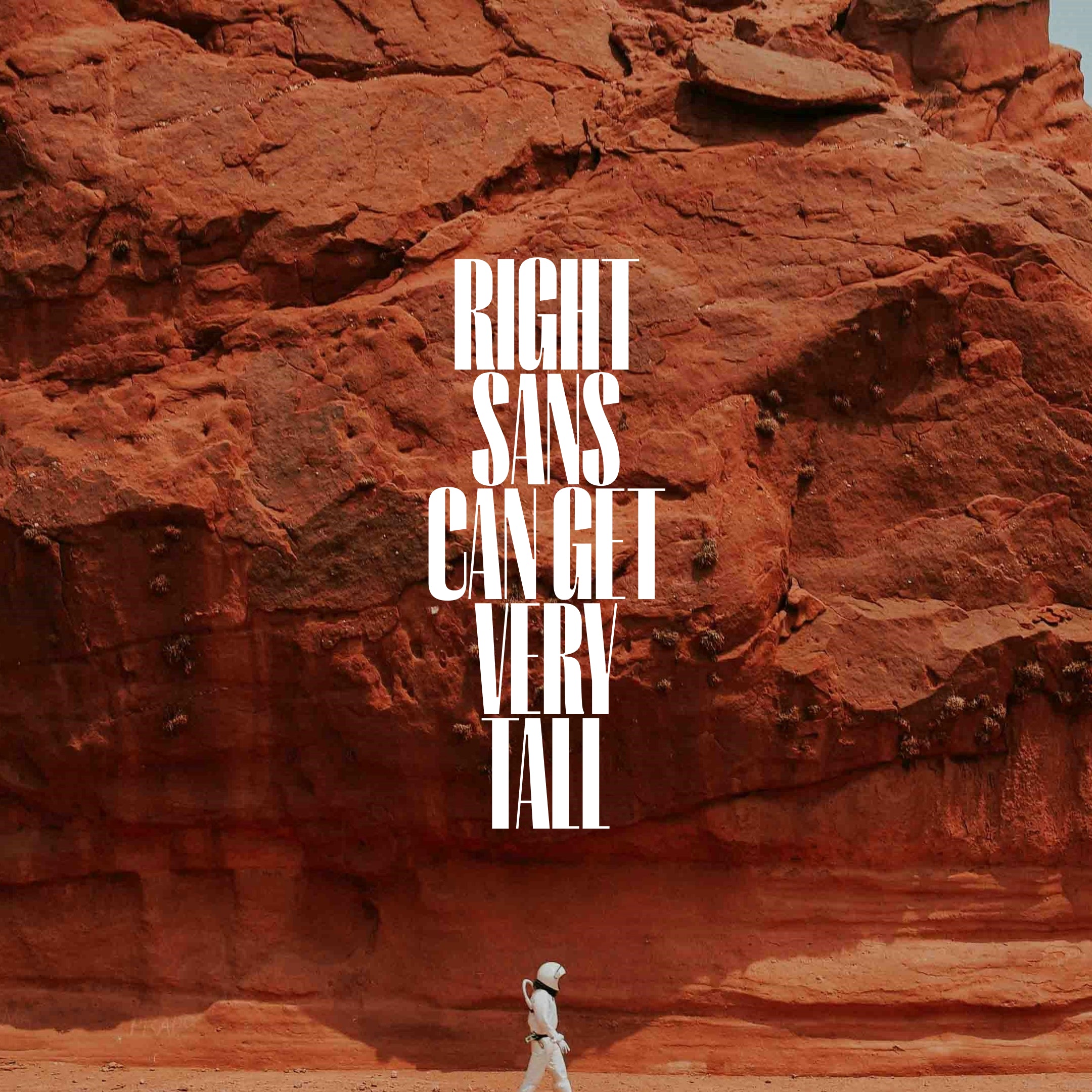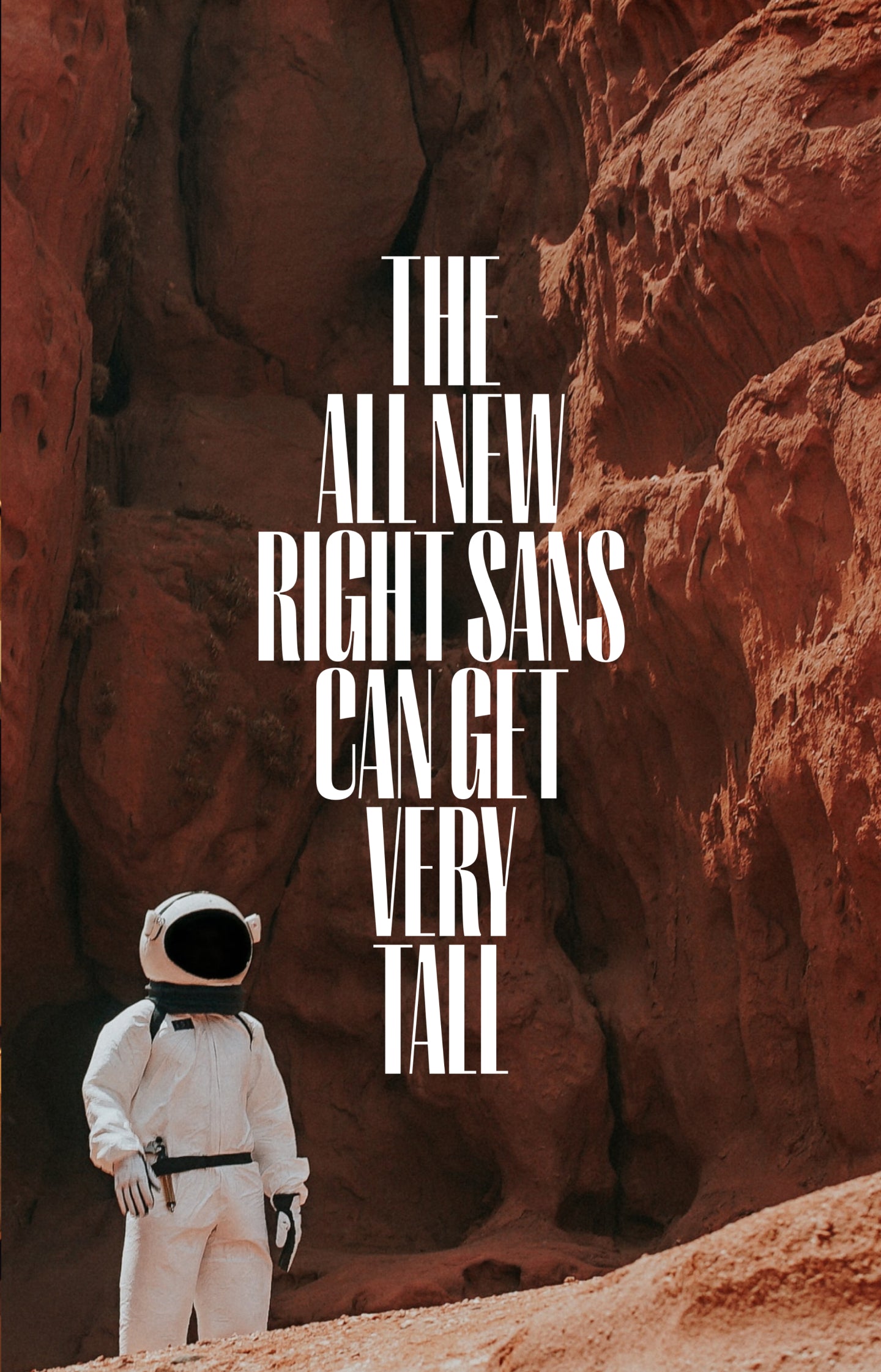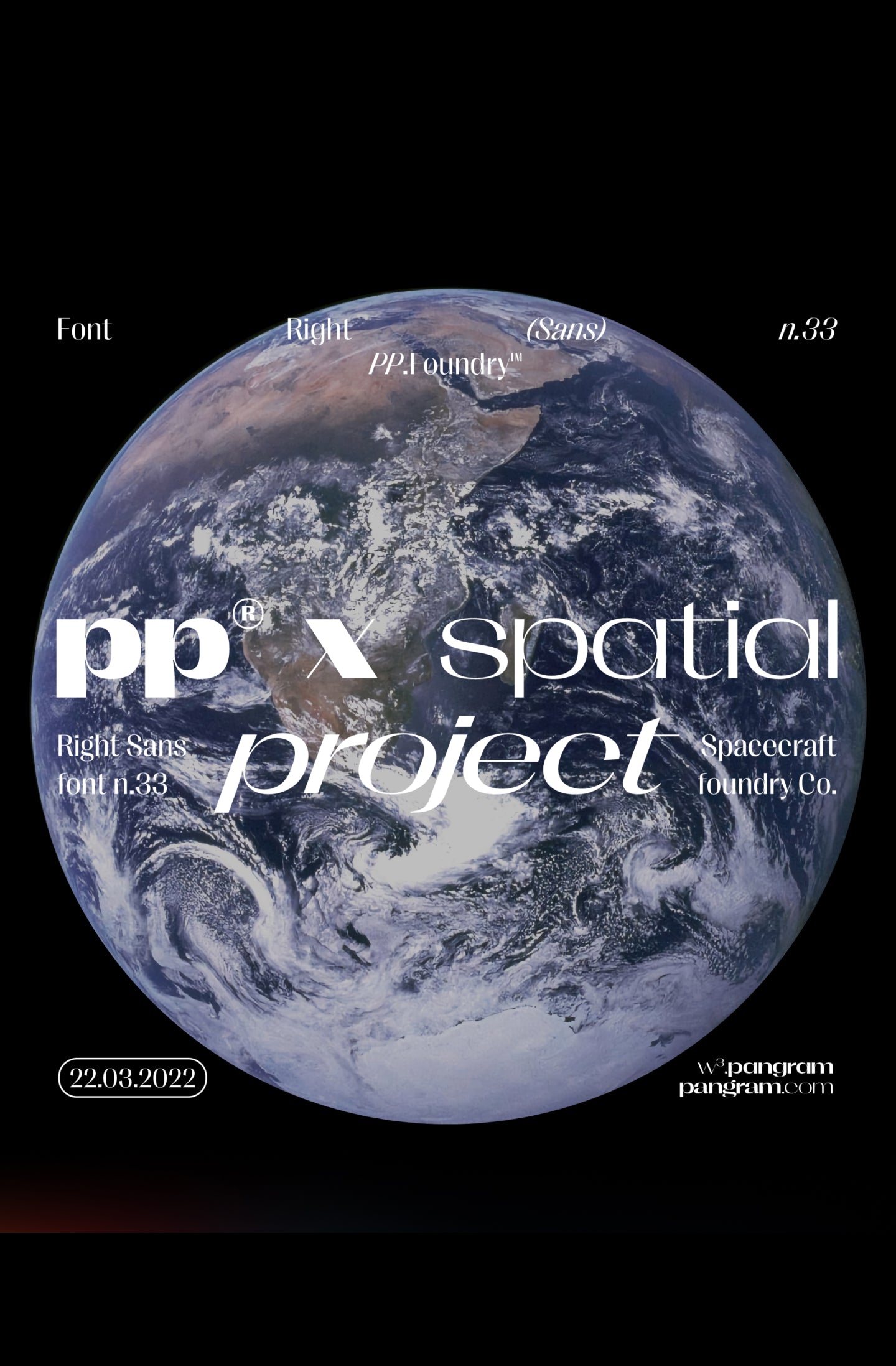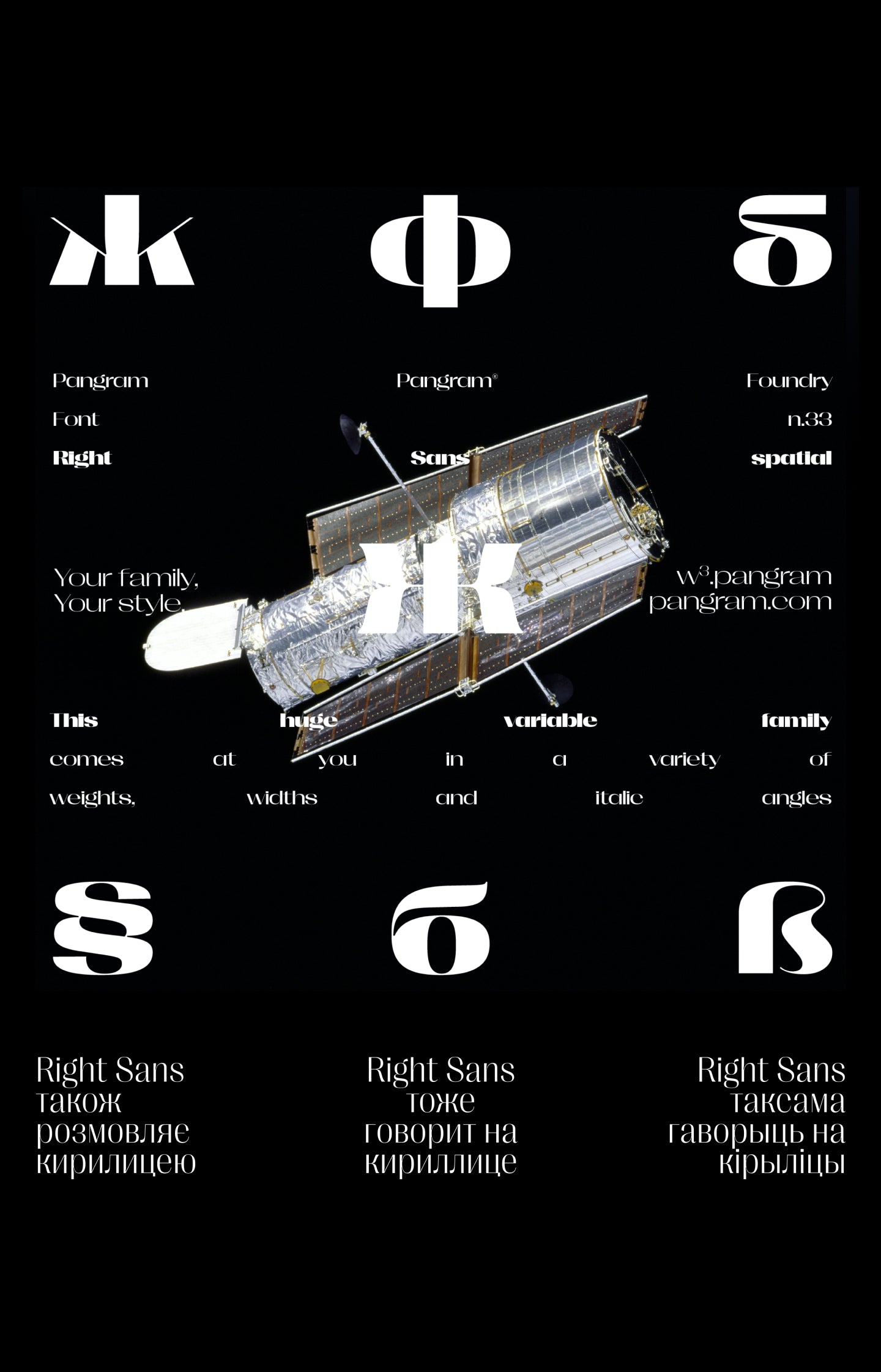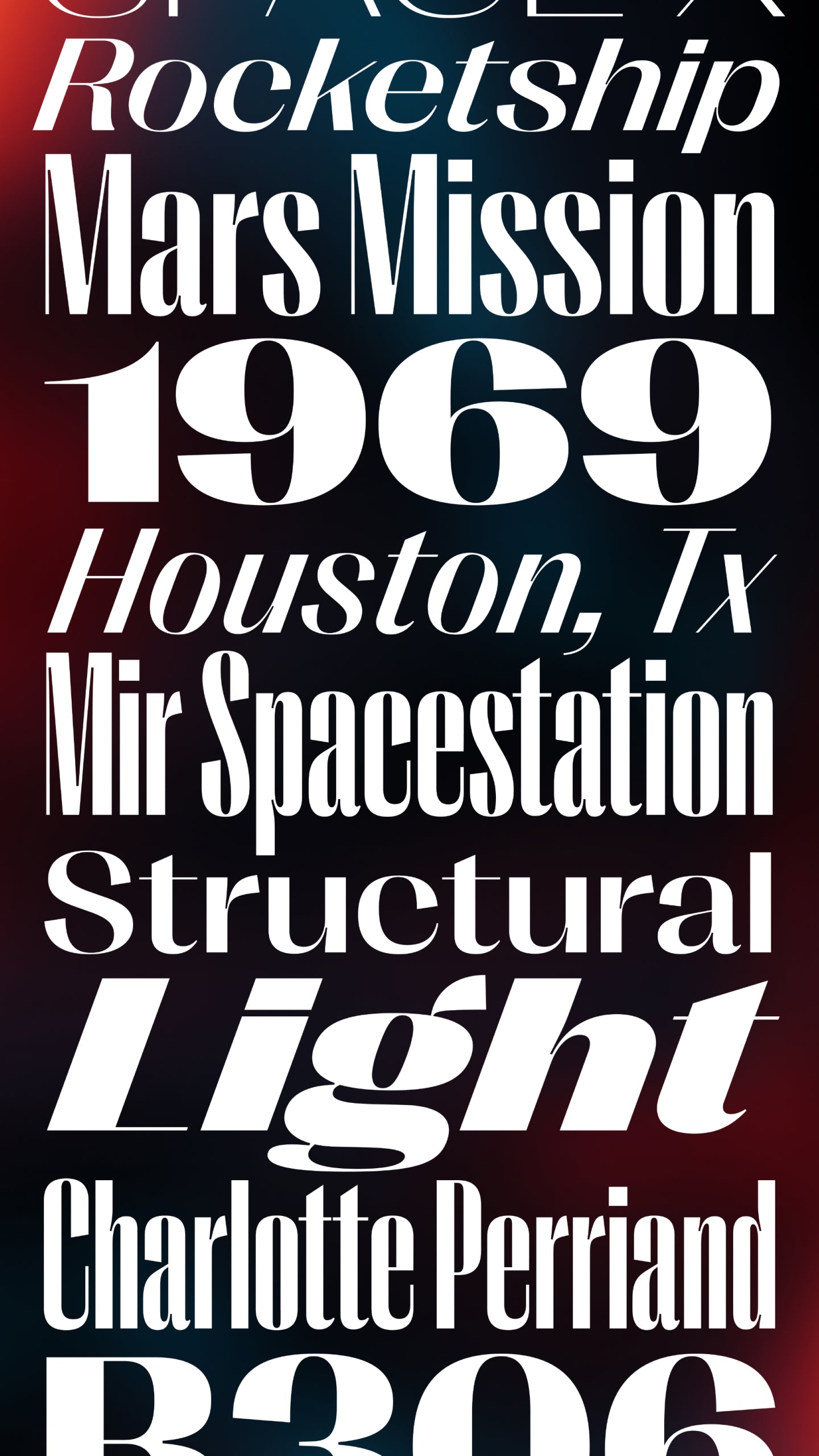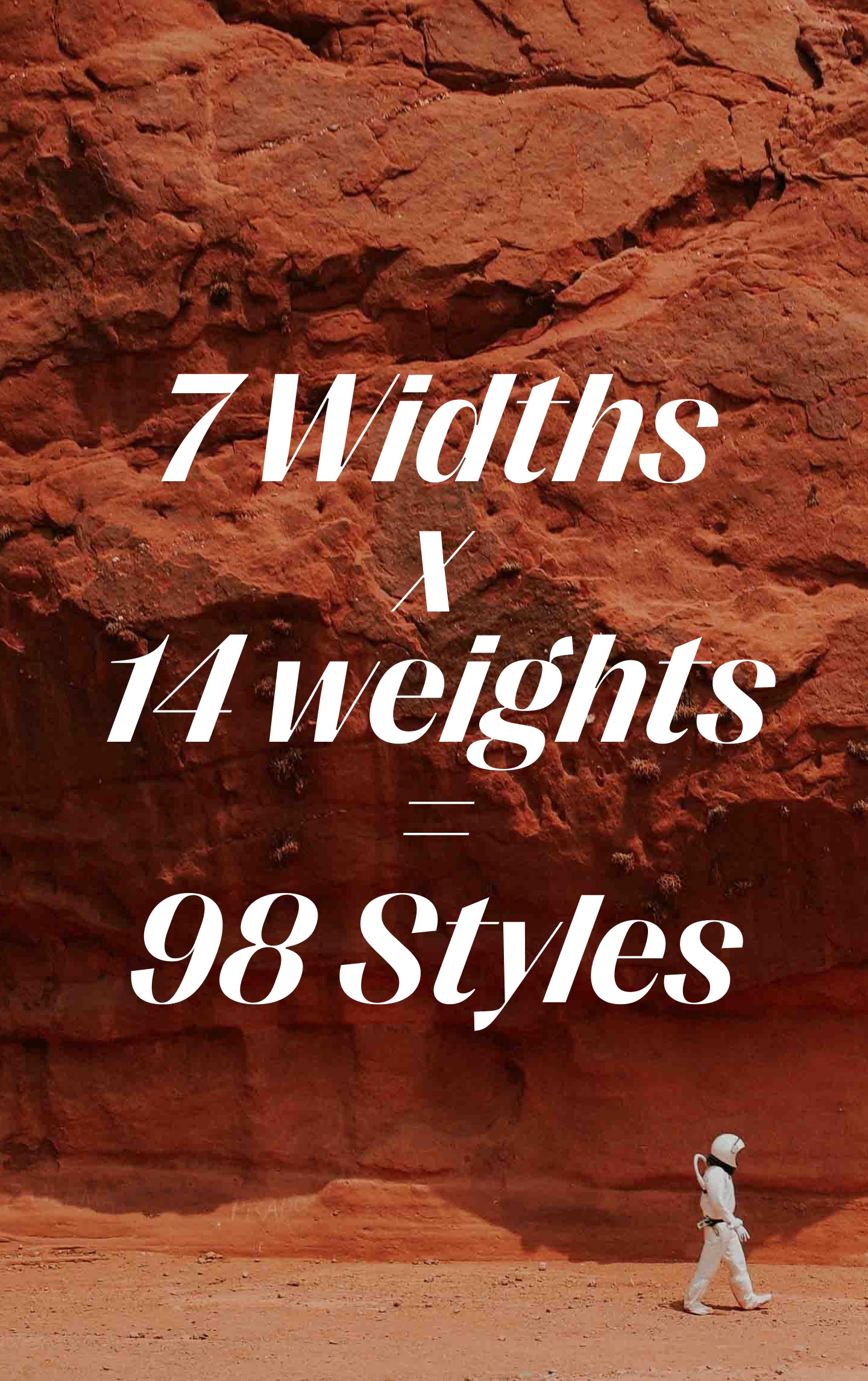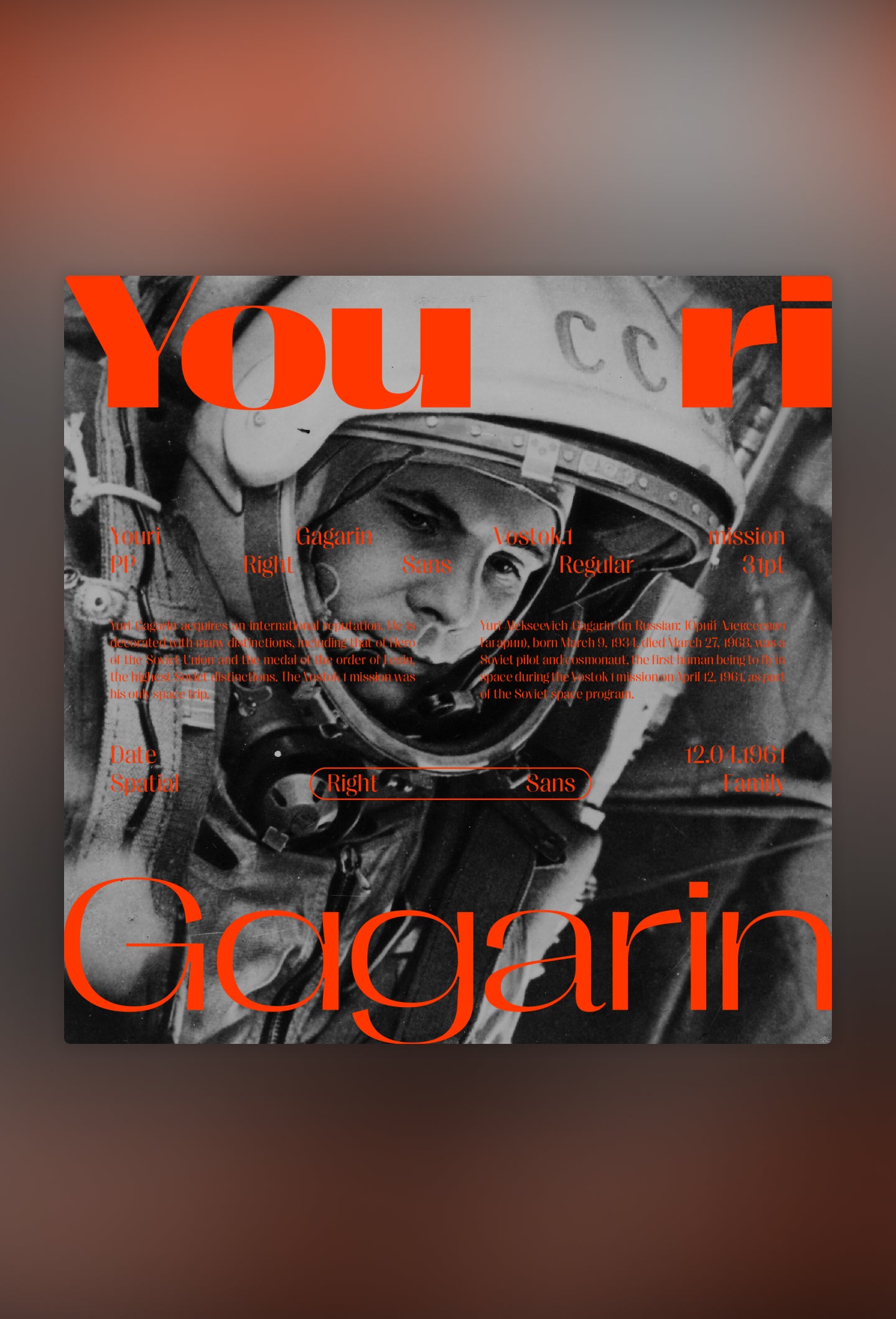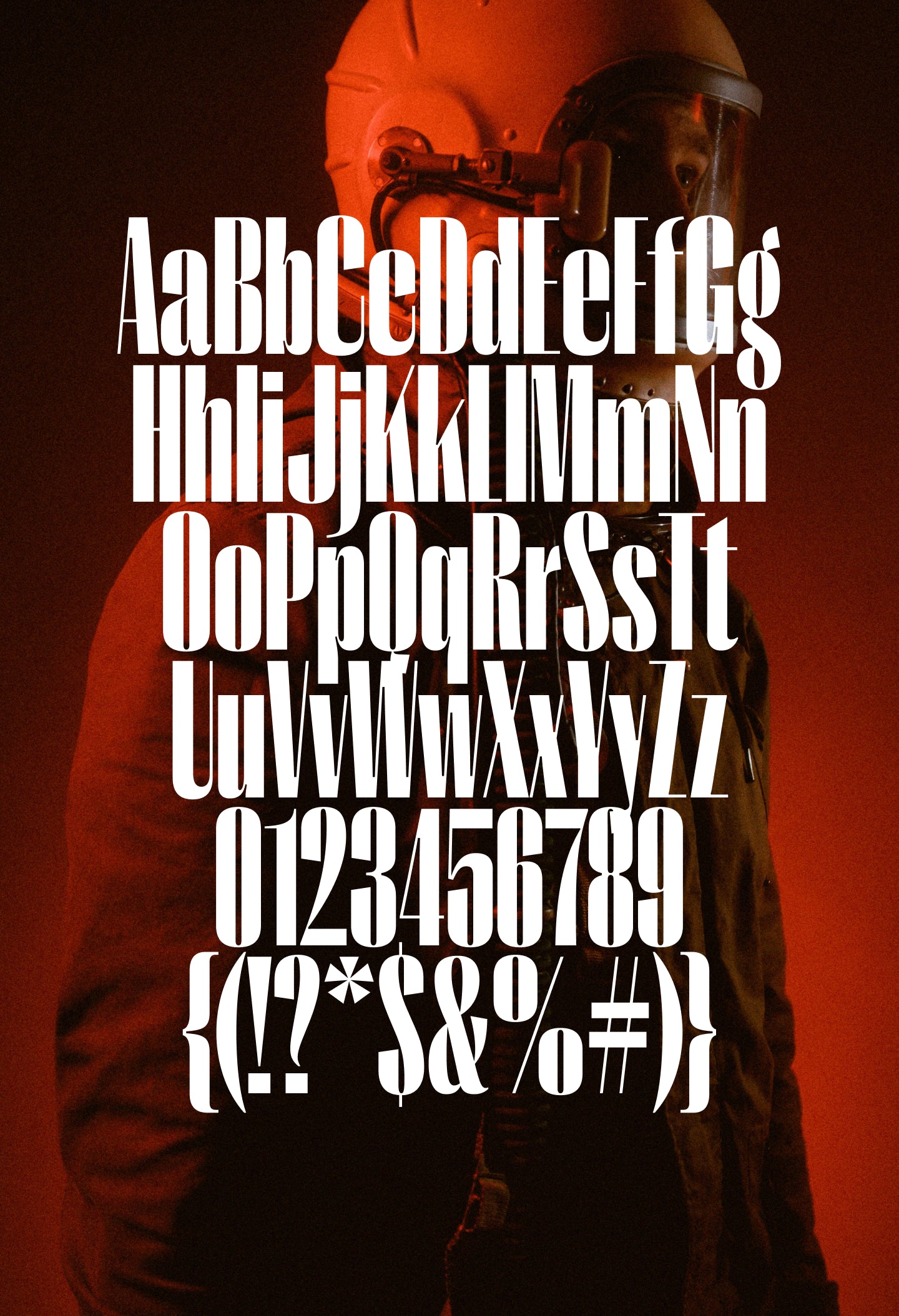
Right Sans
High contrast, high versatility, and just the right amount of flair, this typeface is the graceful cousin in the Right family.
Fancy. But make it sans.
It is a high-contrast sibling of Right Grotesk and Right Gothic. The three of them together give you over 300 fonts perfect for pairing in big and small sizes. Enjoy!
7 Display Cuts (98 Styles Total) with 794 Glyphs each
Including Cyrillic Support